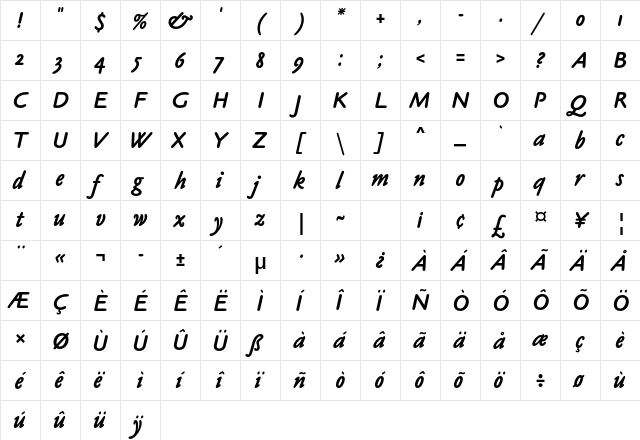
Claude Sans Std Bold Italic Font Preview
| Designer | Alan Meeks |
Design Context for Claude Sans Std Typeface
Claude Sans Std is a composed and adaptable typeface that performs quietly and consistently across a wide range of design contexts. The dynamic lean of this cut emphasises speed and emphasis in any layout. The heavy weight commands attention and anchors typographic hierarchies.
Pro Tip: Try Claude Sans Std for annotation and caption copy alongside an upright companion — the contrast in angle creates a dynamic but ordered typographic system.